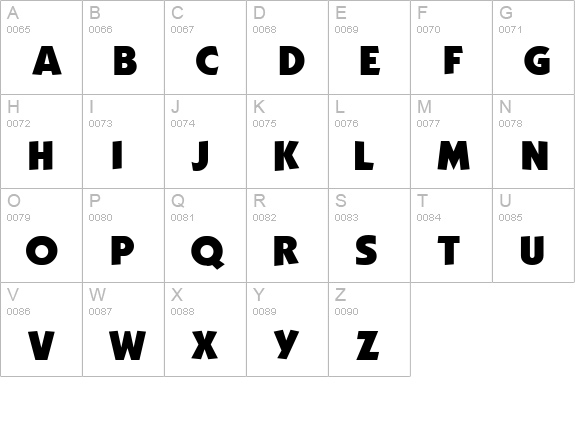
DG_Kabel Bold is a strong, high-contrast variant in the DG_Kabel typeface family \xE2\x80\x94 well suited to headlines, attention-grabbing titles, and strong calls-to-action.
DG_Kabel Bold is a modern and stylish font that exudes confidence and sophistication. Its bold and striking appearance makes it perfect for headlines, titles, and other attention-grabbing design elements. The clean lines and sharp edges of DG_Kabel Bold give it a professional and polished look that is sure to elevate any project. What's more, DG_Kabel Bold is available for free download at FontsMarket.com. This means you can easily access this high-quality font without any cost, making it a valuable addition to your font collection. Whether you're working on a print design, web project, or any other creative endeavor, DG_Kabel Bold is a versatile font that will help you achieve a sleek and modern aesthetic. Download it today and see the difference it can make in your designs.